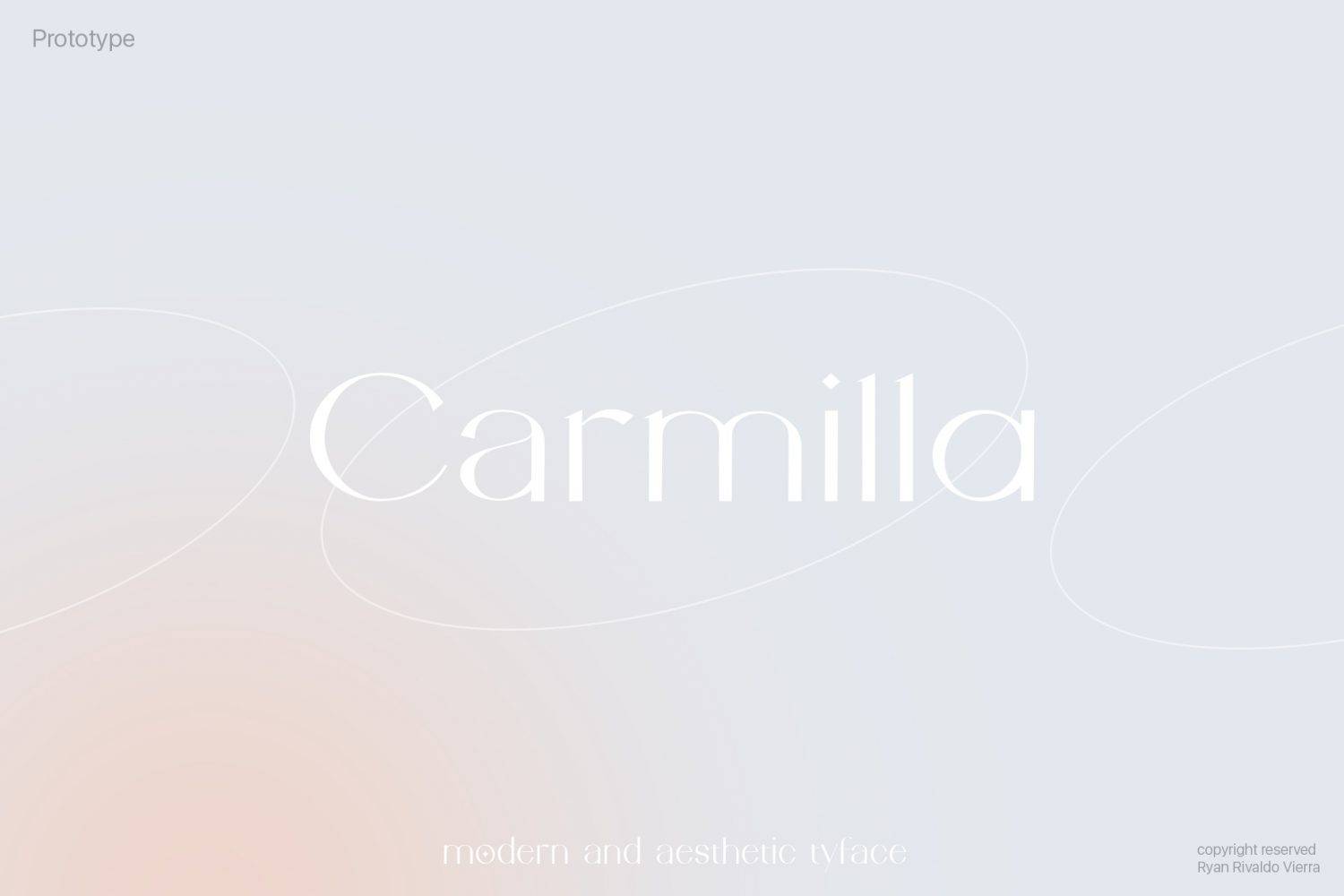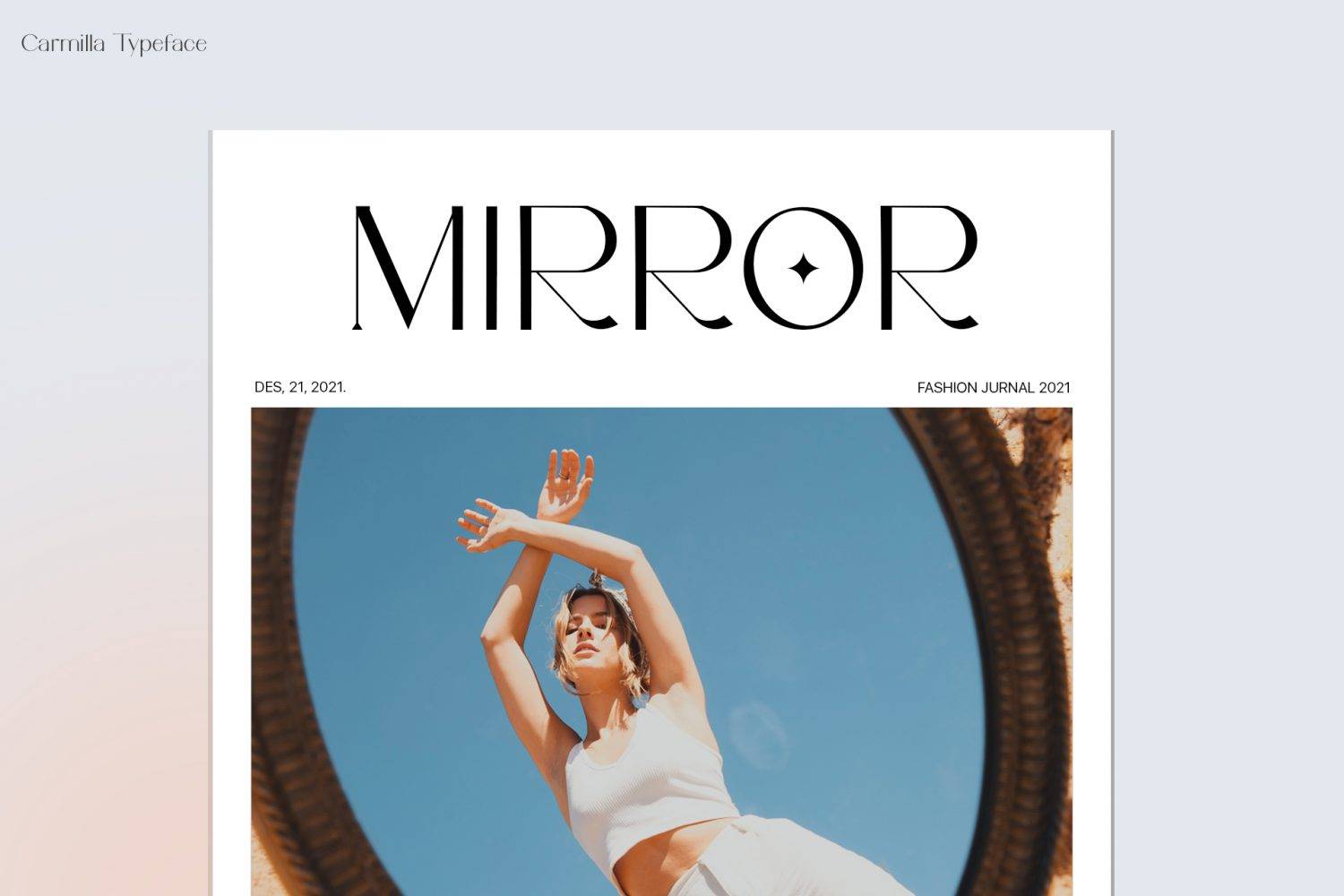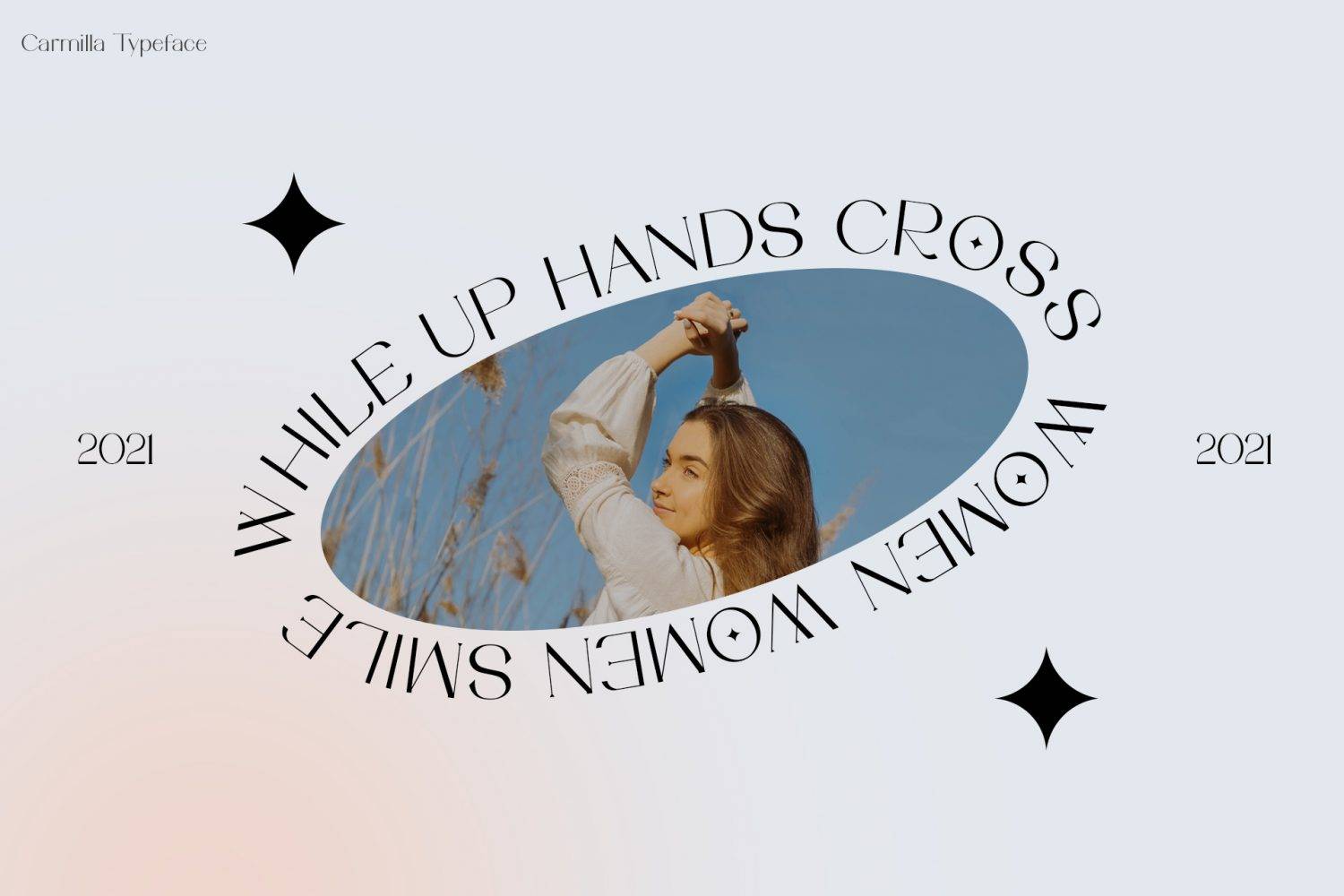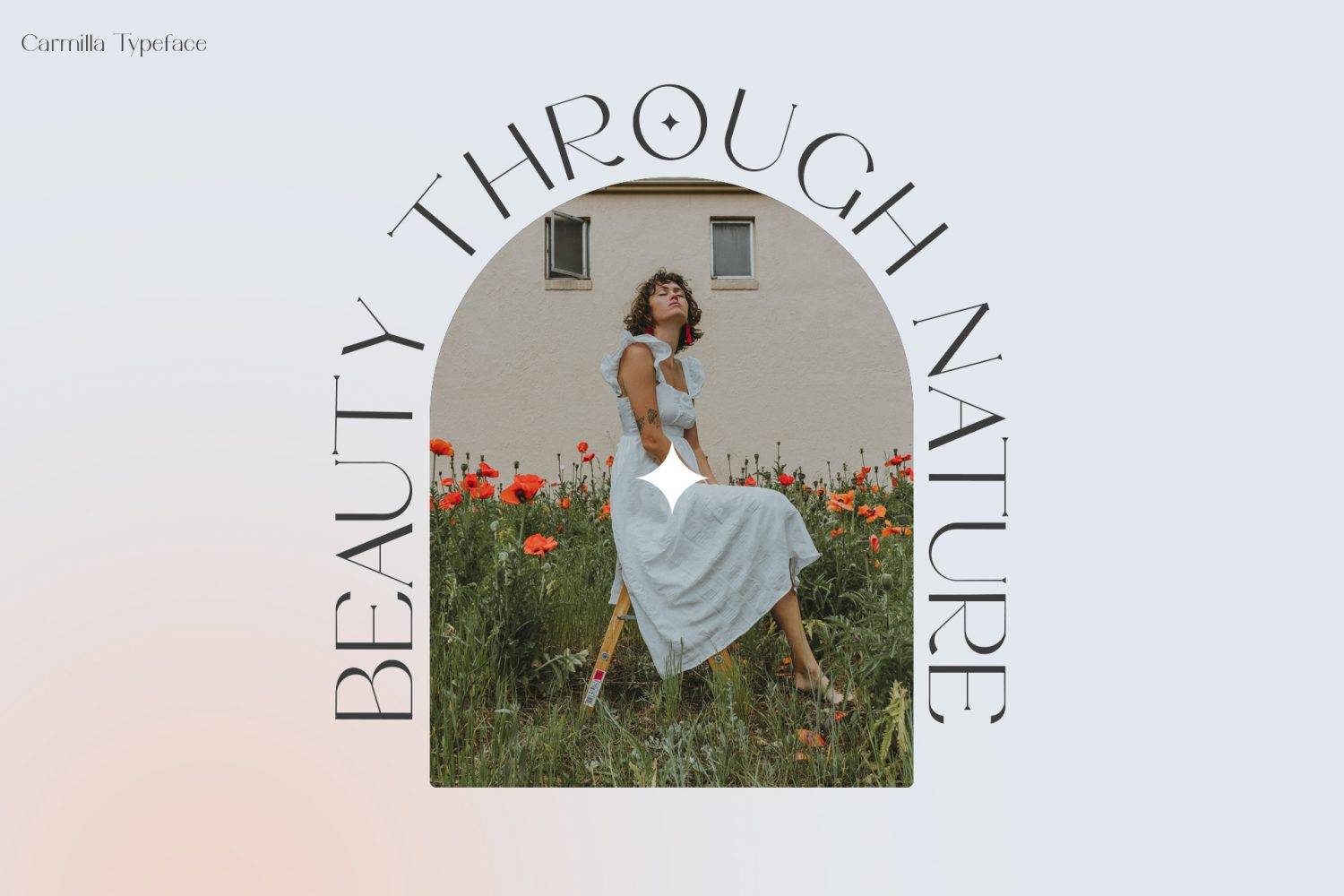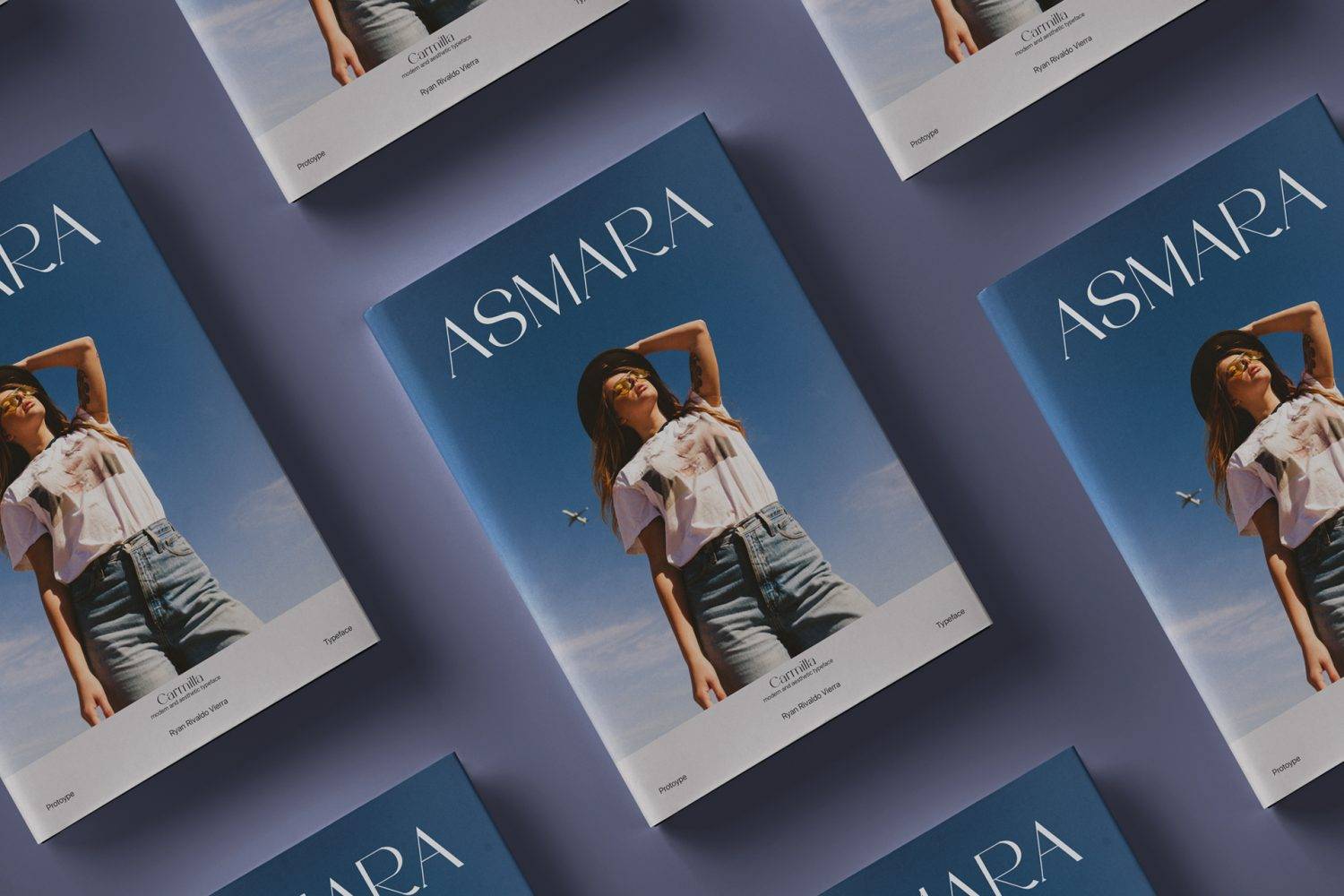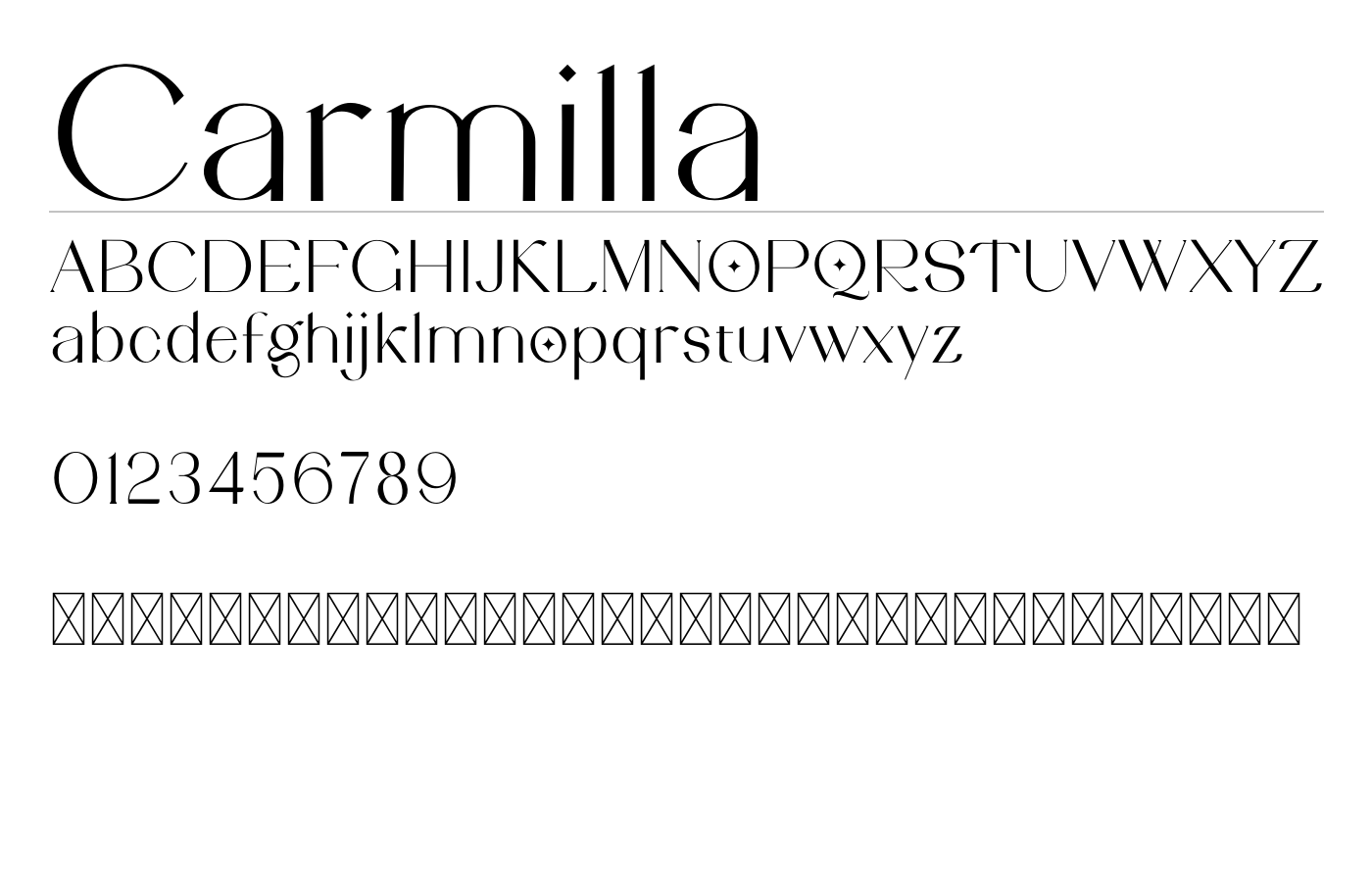
Carmilla is an elegant serif font featuring a modern, high-contrast design with thin, sharp strokes and delicate serifs that evoke a refined and luxurious feel. Its unique letterforms, including stylized details like diamond-shaped dots on letters and a distinctive Q tail, add a sophisticated and artistic touch, making it ideal for fashion branding, editorial headlines, and upscale packaging where a graceful, stylish impression is desired.
Carmilla Font